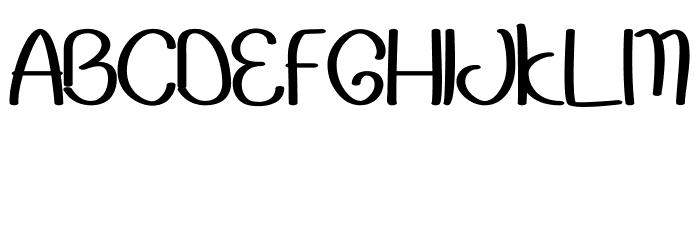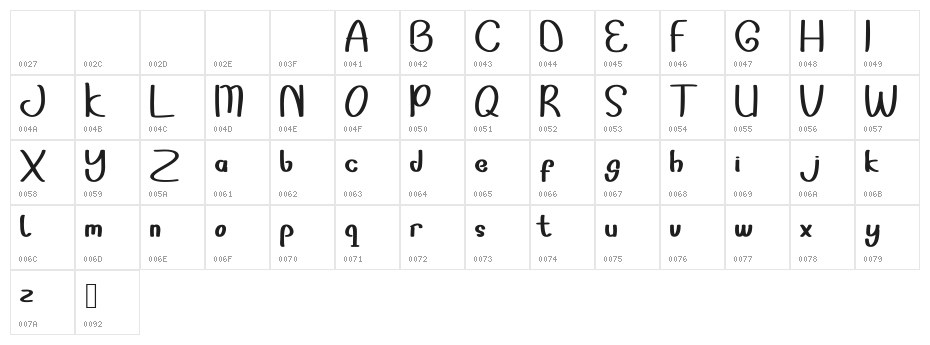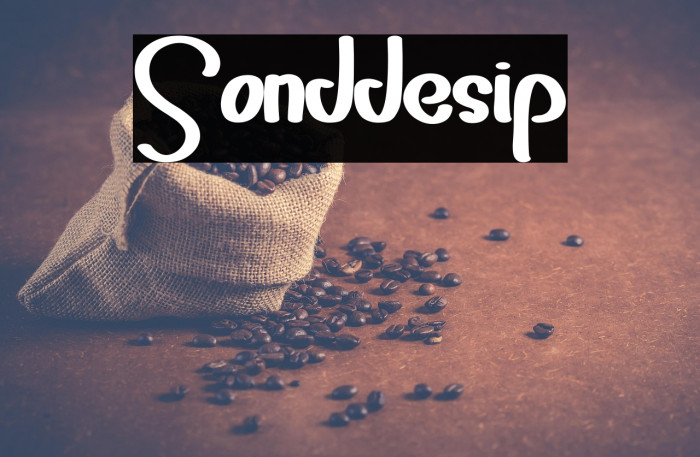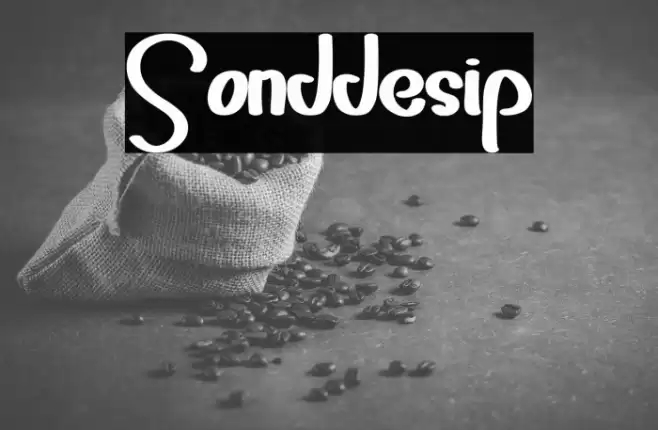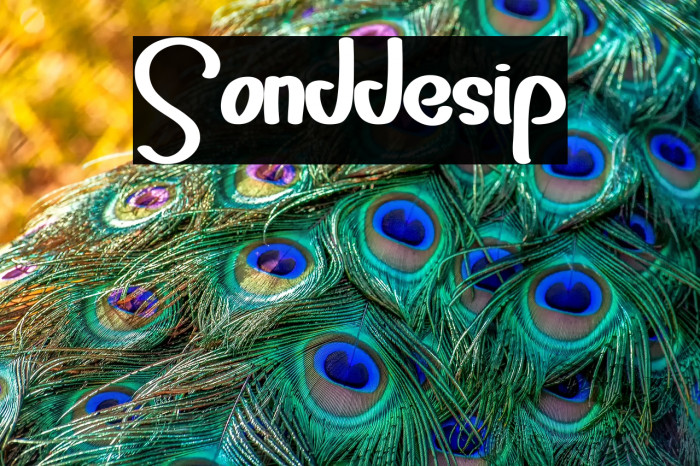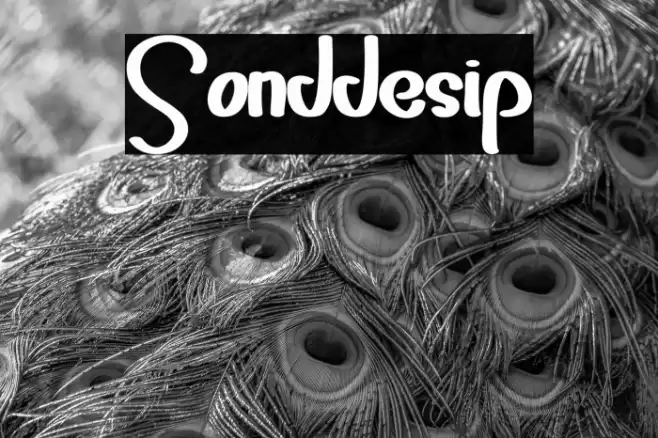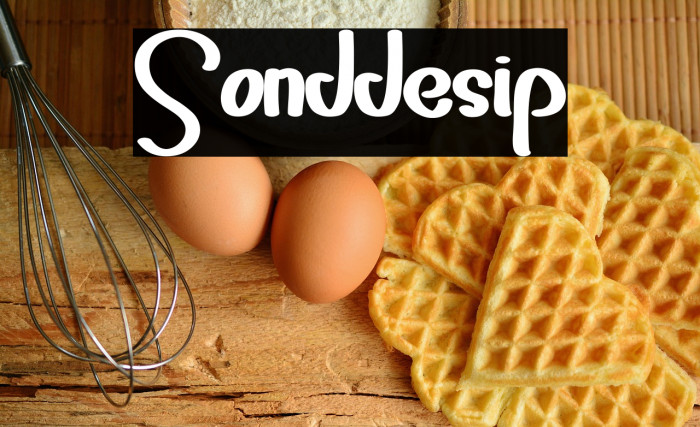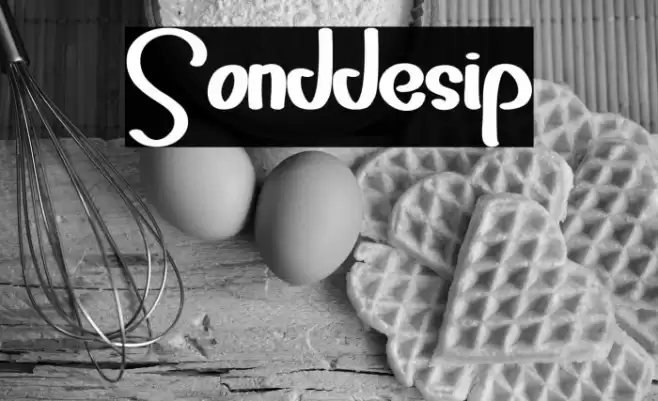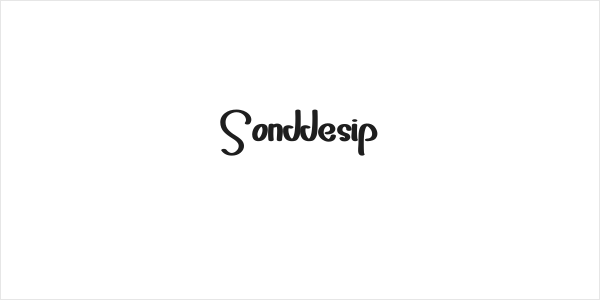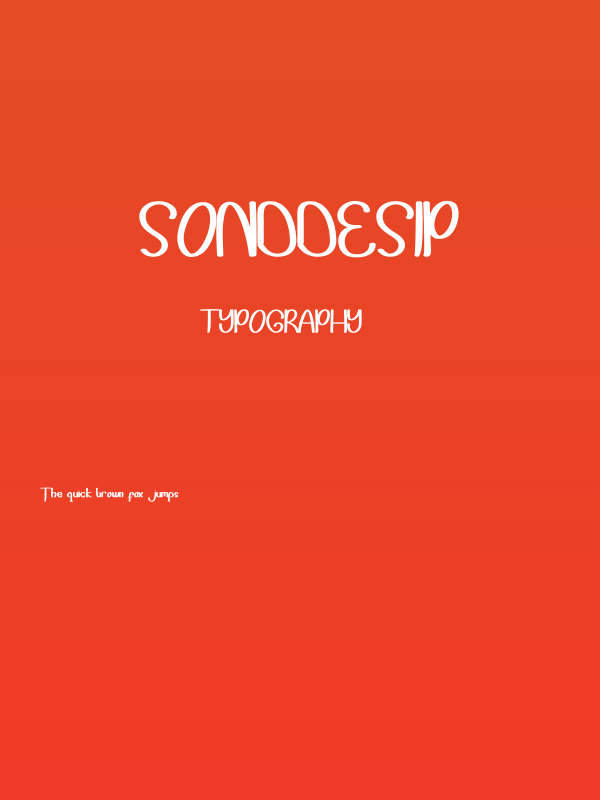
Sonddesip Font
Sonddesip Description
This font features a playful and whimsical style with rounded edges and a hand-drawn appearance. The uppercase letters are bold and slightly condensed, while the lowercase letters maintain a consistent flow with a casual, friendly vibe. The strokes are smooth and even, giving the font a cohesive look. The characters have a moderate width, making them easily readable while still maintaining a unique personality. The font's design is versatile, suitable for both digital and print media, and it can add a touch of creativity to any project.
| Proposed Projects | Ideal for children's books, greeting cards, playful branding, and creative posters. |